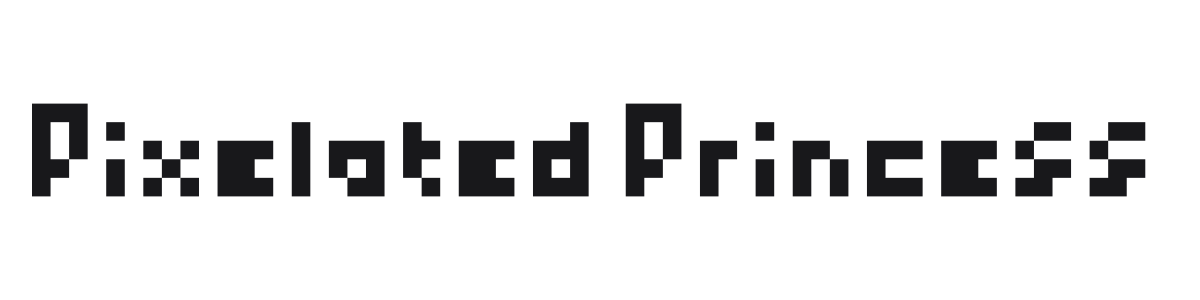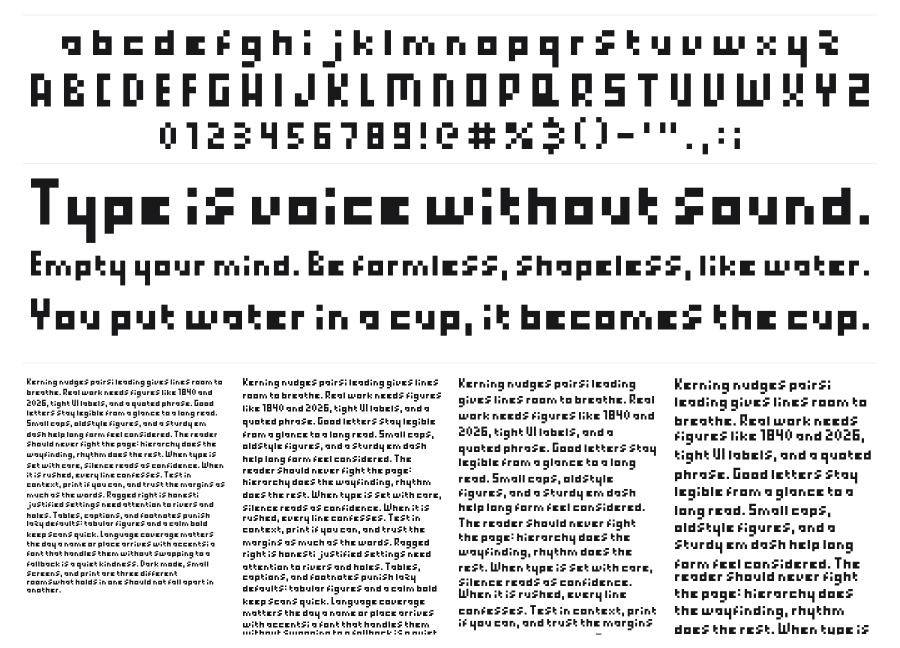
Pixelated Princess
Pixelated Princess is a bold bitmap display font built on a square pixel grid with heavy, uniform strokes. Every character is constructed from chunky pixel blocks, capturing the look of classic 8-bit game text. It reads instantly as retro gaming while staying legible at larger sizes.